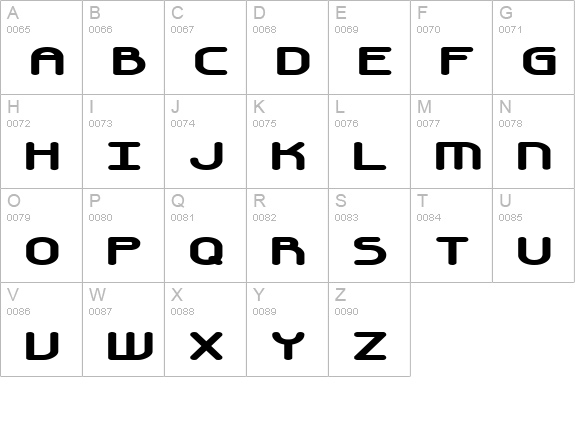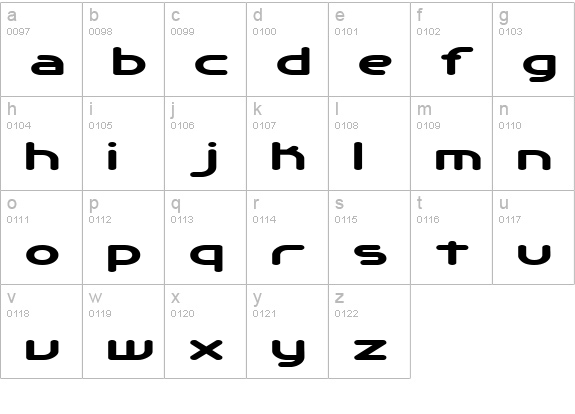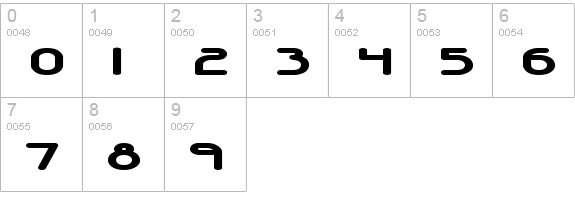
Automatica -BRK- Font Details
Automatica -BRK- is a modern and stylish font designed for those who seek a sleek and professional look in their projects. With its clean lines and geometric shapes, this font exudes a sense of sophistication and elegance. The sharp edges and bold strokes of the letters give it a contemporary and futuristic feel, making it perfect for a wide range of design applications. What sets Automatica -BRK- apart is that it is not only visually appealing but also completely free to use. Whether you're working on a branding project, website design, or any other creative endeavor, this font offers versatility and professionalism without any cost attached. You can easily download Automatica -BRK- for free at FontsMarket.com, where you'll find a wide selection of high-quality fonts to enhance your designs. Elevate your work with the modern and striking aesthetic of Automatica -BRK- font today!